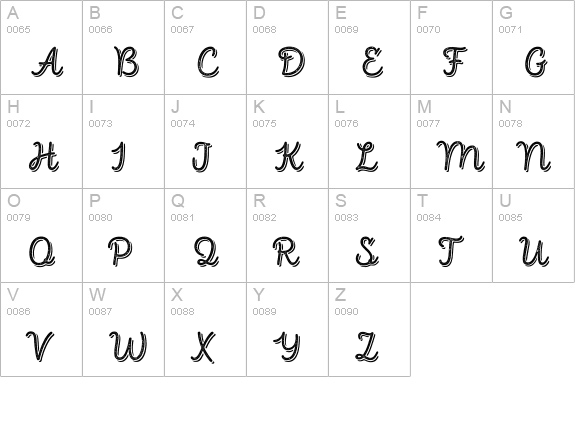
Intro Script R H2 Base Shade Font Details
The Intro Script R H2 Base Shade font is a stunning display font that exudes elegance and sophistication. With its intricate details and unique design, this font is perfect for adding a touch of luxury to your projects. The flowing lines and decorative elements of the font make it ideal for creating eye-catching headlines, signage, invitations, and more. What's even better is that this exceptional font is available for free download at FontsMarket.com. Yes, you heard it right! You can easily access and use this exquisite font without any cost. So why wait? Enhance your designs with the beauty of Intro Script R H2 Base Shade font today and make a lasting impression on your audience.